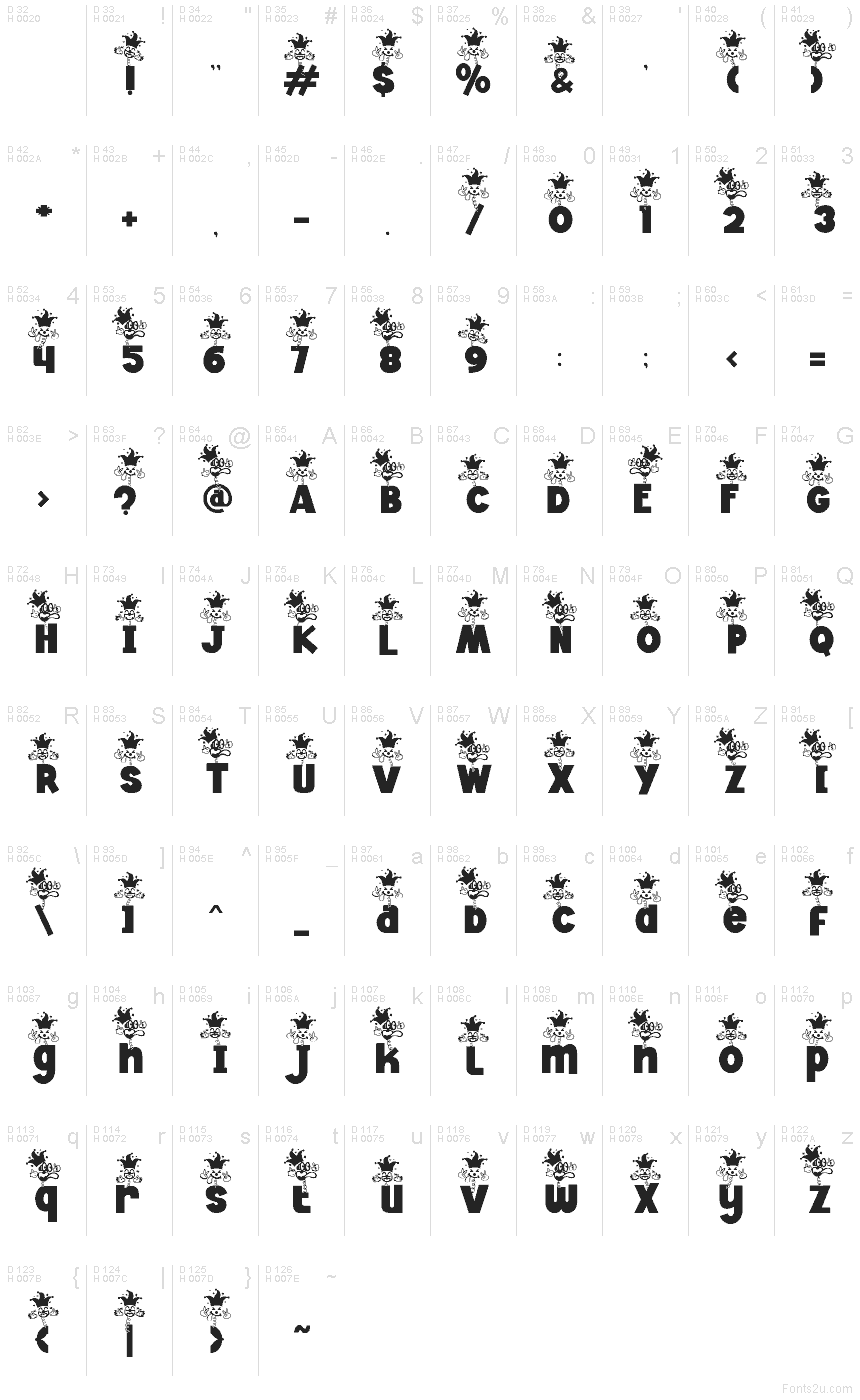
Jester Jumble Surprise
Jester Jumble Surprise font by PutraCetol Studio tells a story of continuous playfulness and carefreeness. This cartoon font is bold, filled with decorative elements, jolly, and lively. Its theatrical presence is not to be denied as it overpowers everything around it.
Bet on this distracting font in titles for creative brands, children’s books covers and pages, greeting cards, T-shirts design prints, typography posters and artworks printables, podcasts or shows visual identities and logos.